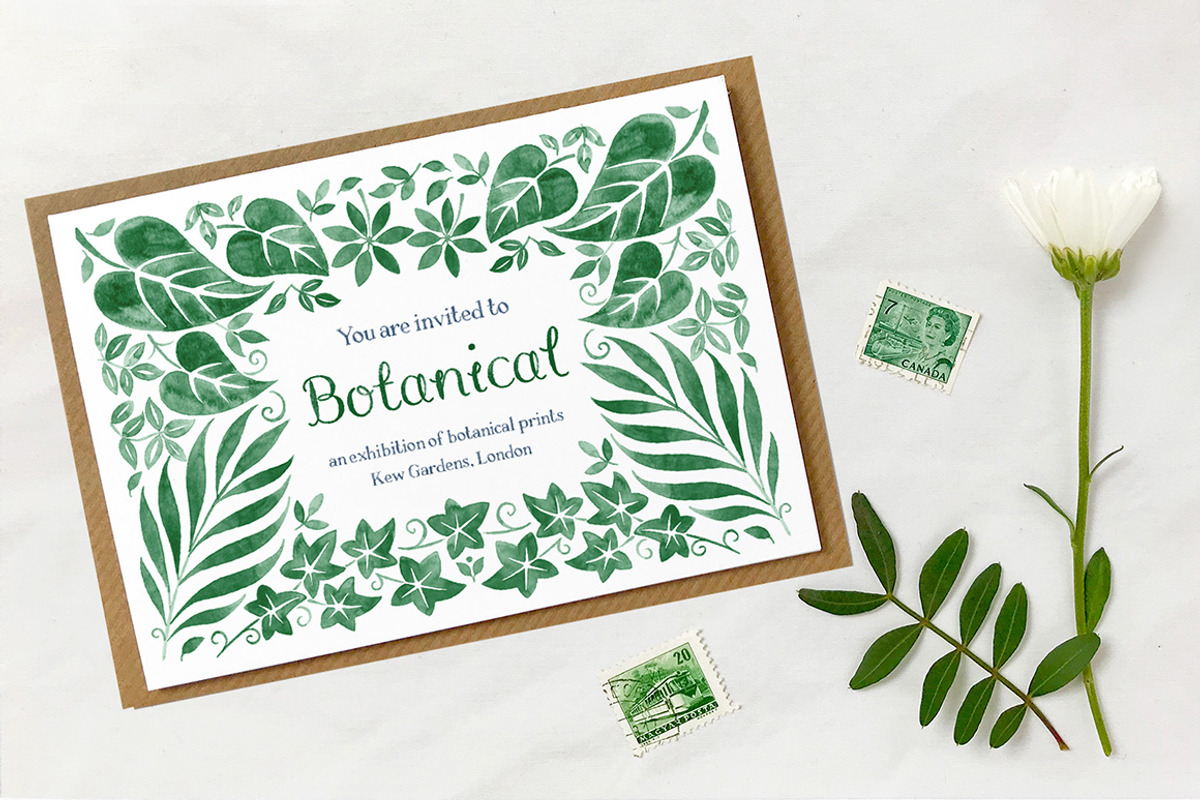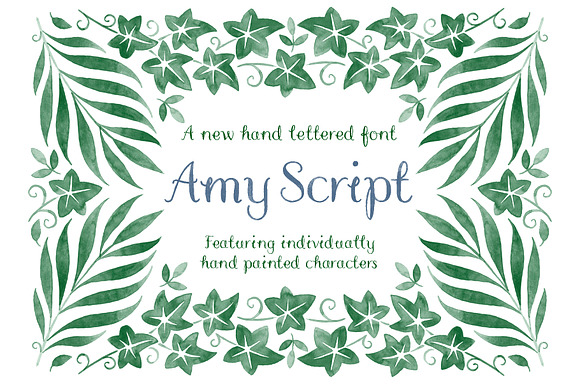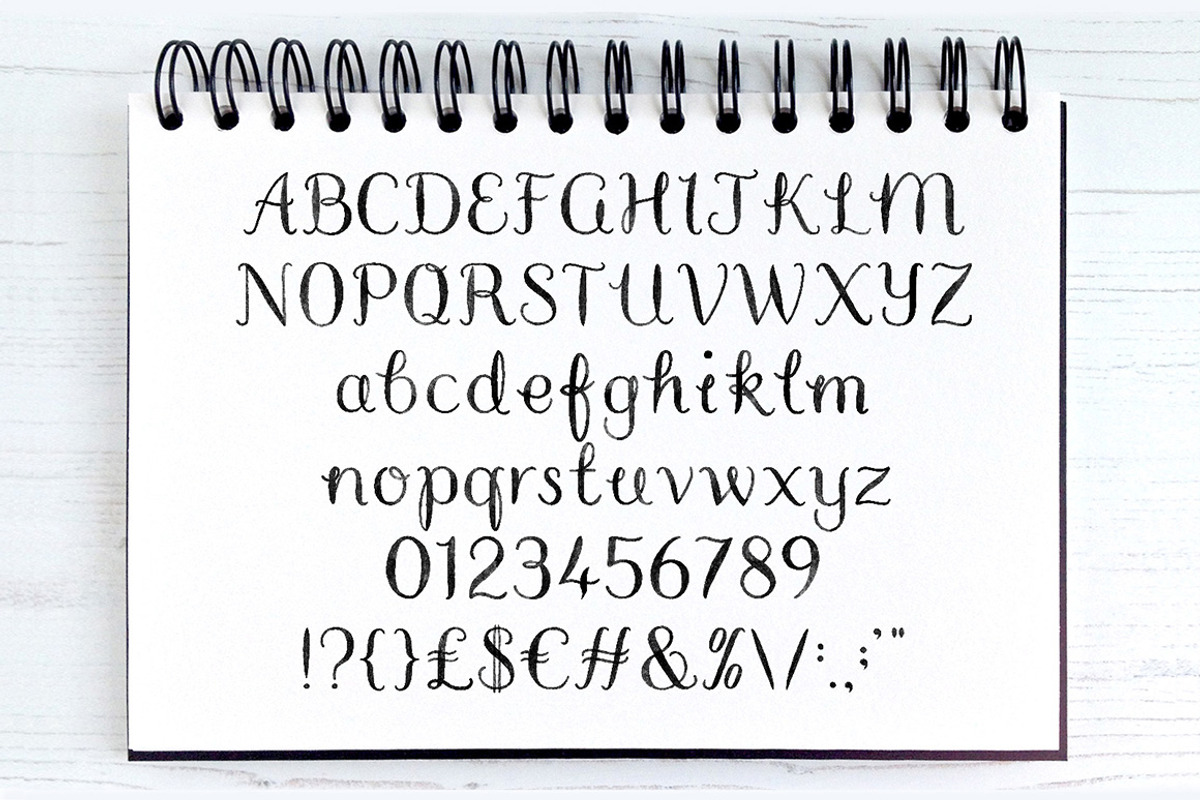
Amy Script Hand Lettered Font
A light and feminine hand lettered font, featuring individually hand painted characters with lovely hand painted textures.
Perfect for invitations, save the date cards, birth announcements, stationery projects, quotes and verses.
Amy Script Hand Lettered Font by Alexandra Snowdon fits naturally into Branding, posters, packaging, typography.